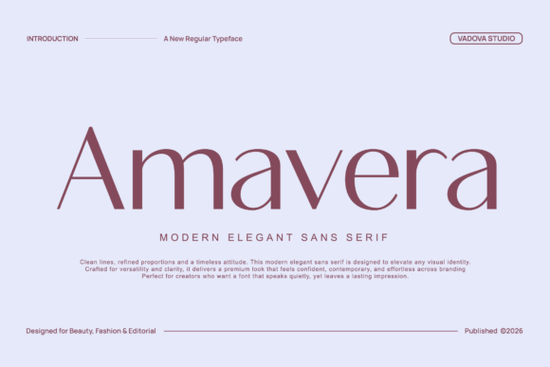
When it comes to creating a sophisticated and modern aesthetic, the Amavera Font is an excellent choice. This elegant sans serif typeface is designed with clean lines, balanced proportions, and refined minimalism, making it perfect for high-end visual identities. Whether you're a designer, crafter, or small business owner, Amavera can bring a sense of quiet luxury and modern refinement to your projects.
Understanding the Design Elements of Amavera Font
Amavera is characterized by its smooth curves and subtle contrast, which give it a premium, fashion-forward look. The design is carefully crafted to be both elegant and versatile, making it suitable for a wide range of applications. Here are some key features that make Amavera stand out:
- Clean Lines: The font's clean, straight lines contribute to its minimalist and modern appearance.
- Balanced Proportions: Each character is meticulously designed to maintain a harmonious balance, ensuring readability and elegance.
- Smooth Curves: The gentle, flowing curves add a touch of sophistication and fluidity to the typeface.
- Subtle Contrast: The subtle differences in stroke thickness create a refined and polished look without being overly dramatic.
Where Can You Use Amavera Font?
Amavera is incredibly versatile and can be used in various design contexts. Here are some areas where this font shines:
- Fashion Brands: The elegant and modern style of Amavera makes it ideal for fashion branding, from logos to marketing materials.
- Beauty Packaging: Its refined look is perfect for beauty product packaging, adding a touch of luxury to labels and boxes.
- Editorial Layouts: The clean and balanced design of Amavera works well in magazines, books, and other print publications.
- Lifestyle Campaigns: Use Amavera to create visually appealing and sophisticated campaigns for lifestyle brands.
- Lookbooks: The font's modern and elegant aesthetic enhances the presentation of lookbooks, making them more appealing and professional.
- Premium Logo Design: Amavera's refined and minimalistic design is perfect for creating high-end and memorable logos.
Comparing Amavera with Other Sans Serif Fonts
How to Choose the Right Font for Your Project
Selecting the right font is crucial for the success of any design project. Here are some tips to help you choose the best font:
- Understand Your Brand: Consider the personality and values of your brand. Amavera, for instance, is perfect for brands that aim for a modern and luxurious feel.
- Consider the Context: Think about where the font will be used. For example, if you're designing a logo, you'll need a font that is both legible and distinctive.
- Test Readability: Make sure the font is easy to read at different sizes and on various backgrounds. Amavera's clean lines and balanced proportions ensure excellent readability.
- Experiment with Combinations: Try pairing Amavera with other fonts to see how they complement each other. For example, you could use Amavera for headings and a more classic serif font for body text.
Practical Tips for Using Amavera Font
To get the most out of Amavera, here are some practical tips:
- Use It Sparingly: While Amavera is versatile, using it too much can make your design feel cluttered. Use it for key elements like headings and logos.
- Play with Weight and Size: Experiment with different weights and sizes to add variety and emphasis to your designs.
- Combine with Other Fonts: Pair Amavera with other complementary fonts to create a balanced and visually appealing layout.
By following these tips and guidelines, you can effectively incorporate Amavera into your design projects and achieve a modern, elegant, and sophisticated look. Happy designing!